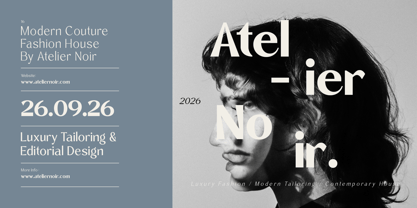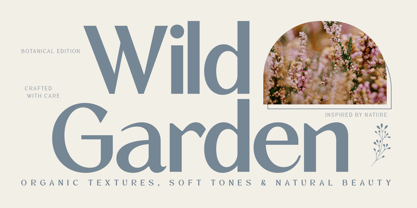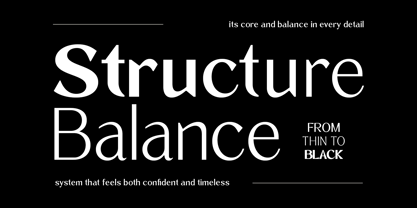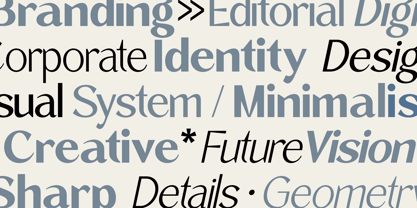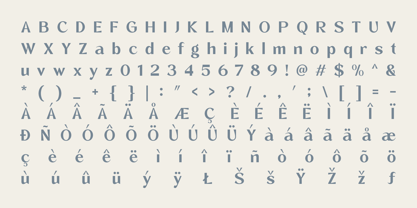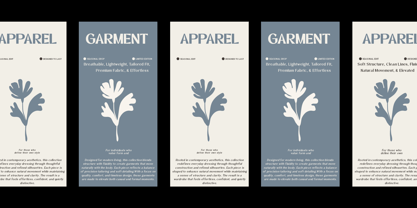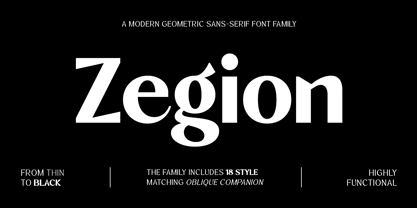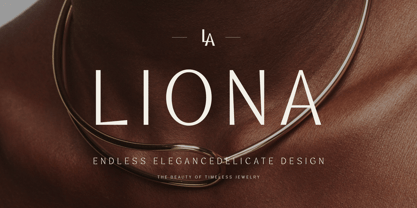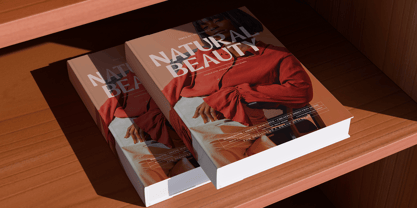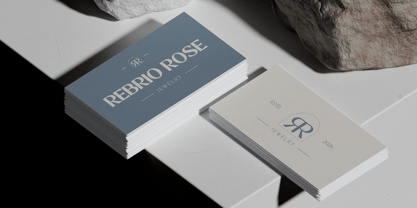
Zegion
von Jafar07
Die Schriftfamilie Zegion wurde von Bakhrudin Ja'far entworfen und von Jafar07 veröffentlicht. Zegion enthält 18 Stile und Familienpaketoptionen. Mehr über diese Familie
Introducing Zegion, a modern geometric sans serif typeface that showcases clean proportions, balanced letterforms, and a contemporary aesthetic. This versatile font family comprises 18 styles, ranging from Thin to Black, along with matching Oblique versions for enhanced design flexibility. With its refined geometry and exceptional readability, Zegion is perfect for branding, editorial layouts, logos, packaging, websites, corporate identities, social media, and marketing materials. Whether for print or digital projects, Zegion offers a professional and timeless appearance. It features complete multilingual support, uppercase and lowercase letters, numerals, and punctuation, making it a dependable choice for designers across a wide range of creative applications.
Designer: Bakhrudin Ja'far
Foundry: Jafar07